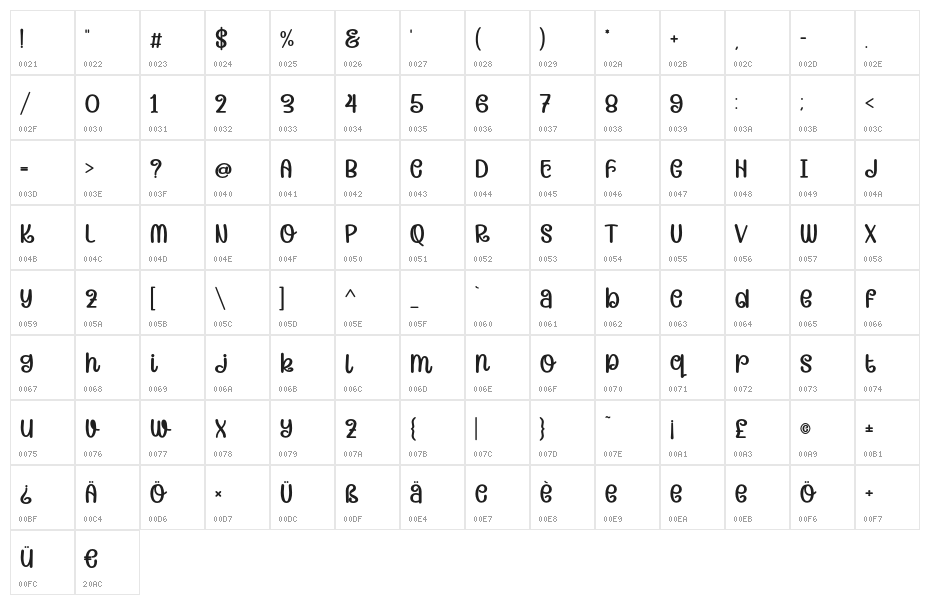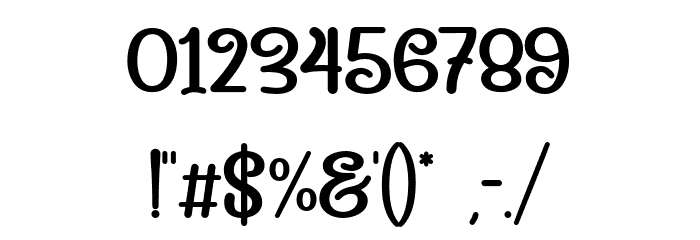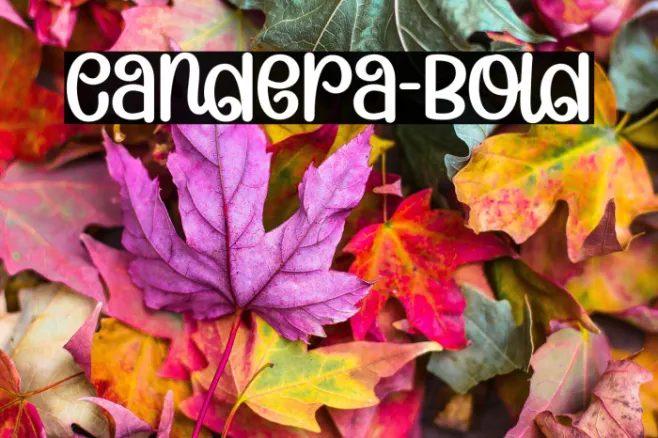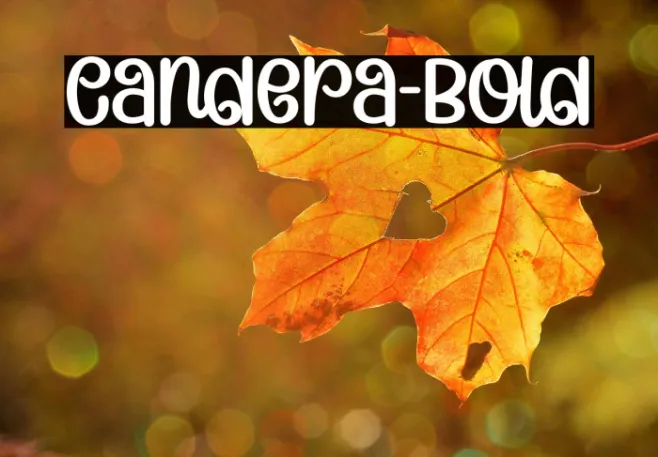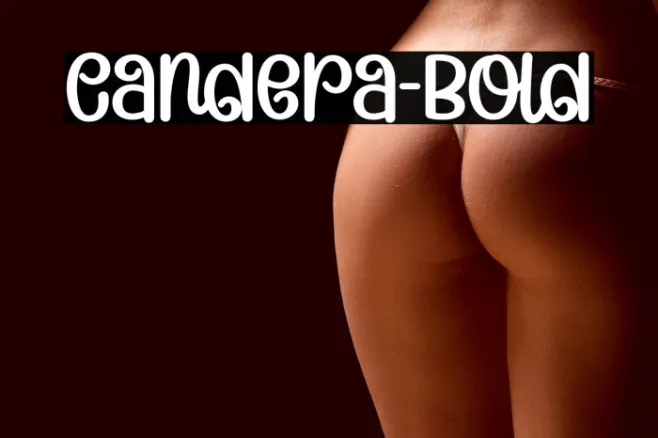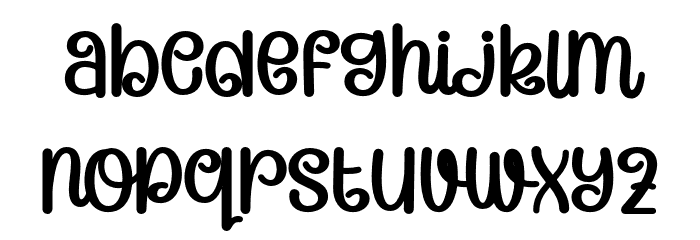
Candera-Bold Font
Candera-Bold Description
This font features a playful and rounded style, characterized by its bold and smooth curves. The letters are evenly spaced, creating a harmonious and friendly appearance. The uppercase and lowercase letters maintain a consistent flow, with a slight whimsical touch that adds personality. The numerals and special characters are designed to match the overall aesthetic, making it versatile for various design needs. Its boldness ensures readability while maintaining a unique and engaging look.